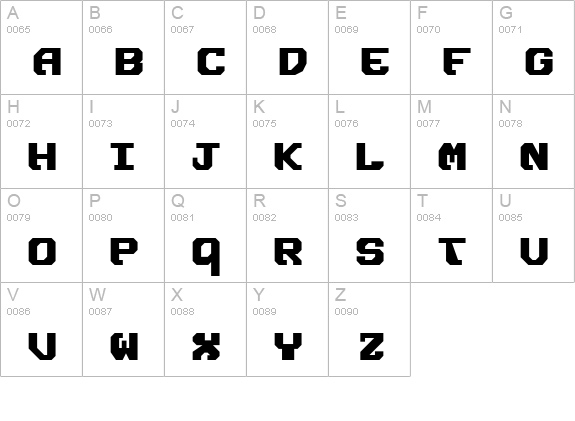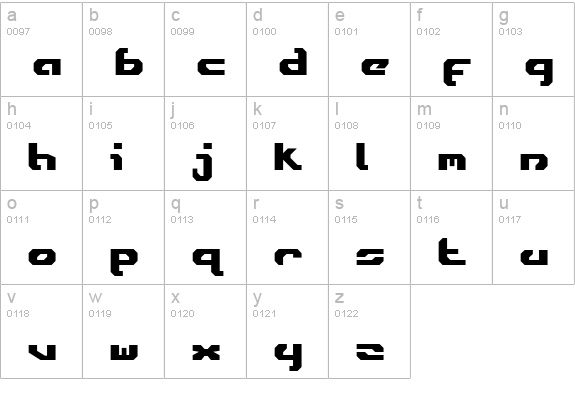
Ensign Flandry Bold is a strong, high-contrast variant in the Ensign typeface family \xE2\x80\x94 well suited to headlines, attention-grabbing titles, and strong calls-to-action.
Ensign Flandry Bold font is a striking and modern typeface that exudes confidence and authority. With its bold and sturdy design, this font is perfect for making a bold statement in your designs. The strong, clean lines of Ensign Flandry Bold give your text a powerful presence that demands attention. Whether you're working on a poster, logo, or any other design project, Ensign Flandry Bold will help you stand out and make an impact. This versatile font is suitable for both headlines and body text, making it a valuable addition to your font collection. The best part? Ensign Flandry Bold is completely free to download at FontsMarket.com. So, why wait? Add this impressive font to your arsenal today and take your designs to the next level!